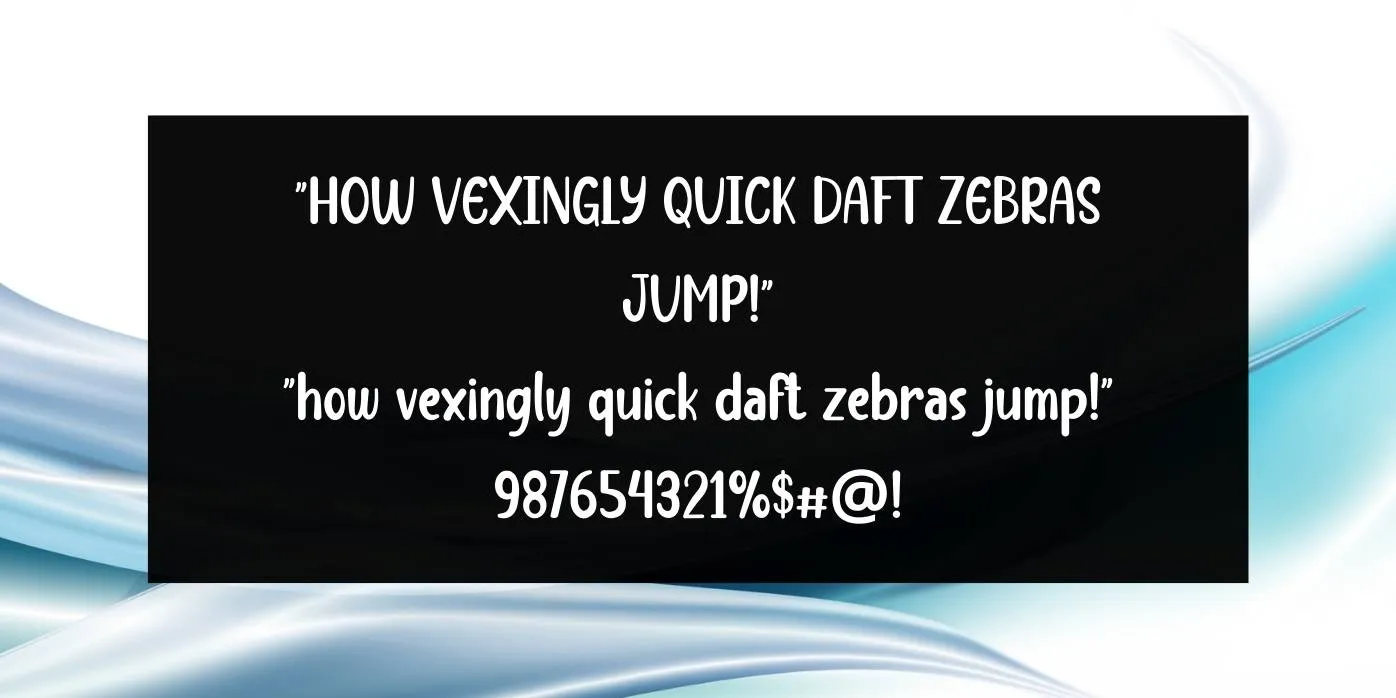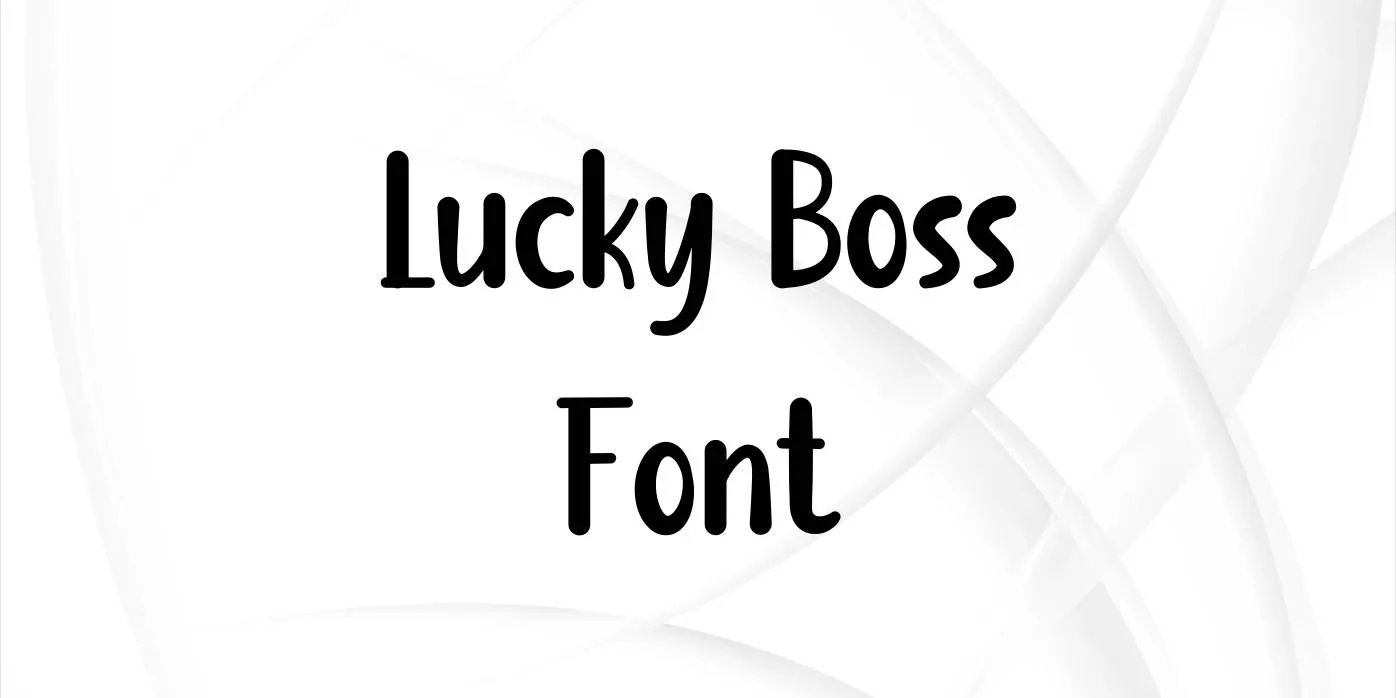
Lucky Boss Font
Lucky Boss was designed by a famous typographic designer named Rantautype and was published by Yudi Pratama Chandra. It is a very lovely font with a bubbly look. The Macintosh platform supported by this font is Roman and contains different types of alphabet characters such as symbols, numbers, capital letters, small letters, and punctuation. It consists of 102 characters, 155 glyphs, and 1000 units per Em.
The weight of the font is Medium (Normal) and the Width of the font is Semi-Condensed. Mac Style of this font is Bold and the direction follows only left to right with neutral regular. The patterned nature followed by this font is regular. This font can be paired with another font like sunday holiday font.